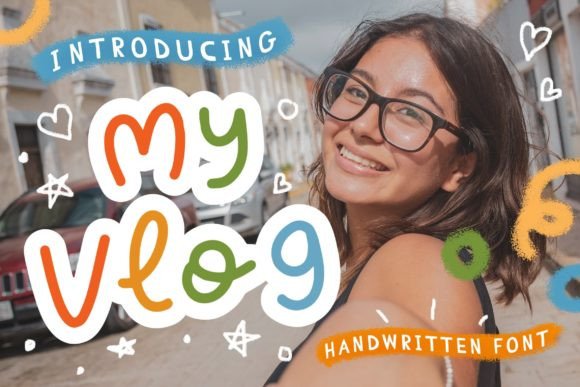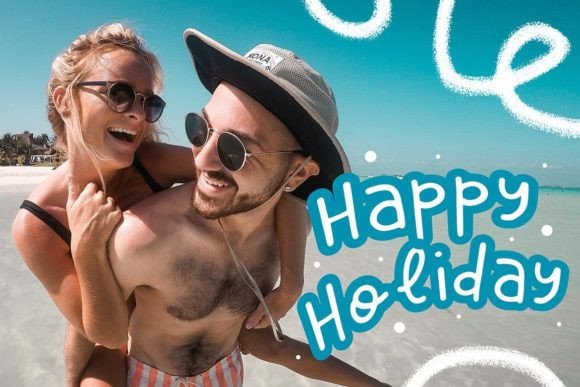
**My Vlog** is a font that embodies cuteness and quirkiness, designed in a handwritten style that exudes a friendly and approachable vibe. Its playful charm and warm personality make it an ideal choice for various creative projects, from social media posts on platforms like Instagram to DIY projects and more. **My Vlog** transforms ordinary text into delightful visual art, adding a touch of creativity and friendliness to your content.
**Cute and Quirky Charm**: **My Vlog** boasts a cute and quirky charm that immediately captures attention. Its playful letterforms and whimsical elements create a sense of lightheartedness and joy, making it perfect for projects that demand a touch of cuteness and creativity. The font’s quirky design adds a fun and cheerful vibe to the text, ensuring it looks inviting and delightful.
**Incredibly Friendly Feel**: **My Vlog** radiates an incredibly friendly feel, making it ideal for creating a warm and approachable atmosphere. Its friendly and informal style fosters a sense of connection with the audience, making it suitable for designs that aim to establish a personal rapport. The font’s friendly feel adds a welcoming and inviting touch to the content, ensuring it resonates positively with viewers.
**Versatile Creative Applications**: **My Vlog** is versatile and adaptable to a variety of creative applications. Whether used for social media posts, handwritten scripts for DIY projects, digital art, or other creative endeavors, the font seamlessly integrates into different contexts. Its cute and quirky appeal enhances the visual appeal of diverse projects, adding a touch of playfulness and creativity to the content.
**Access to Amazing Glyphs and Ligatures**: The font’s PUA encoding allows easy access to all glyphs and ligatures, enhancing creative freedom. Designers can explore various letter combinations and decorative elements, customizing the font to suit specific design needs. This feature adds versatility and flexibility to the font, encouraging experimentation and artistic expression.
In summary, **My Vlog** is more than just a font; it’s a delightful expression of cuteness, quirkiness, and friendliness. Its cute and quirky charm, coupled with its incredibly friendly feel, makes it a valuable asset for a variety of creative projects. By incorporating **My Vlog** into your designs, you can infuse them with a playful and approachable energy, ensuring your content resonates with positivity and creativity. Let **My Vlog** be the cute and friendly companion that adds a touch of joy to your creative endeavors, making them truly delightful and memorable.